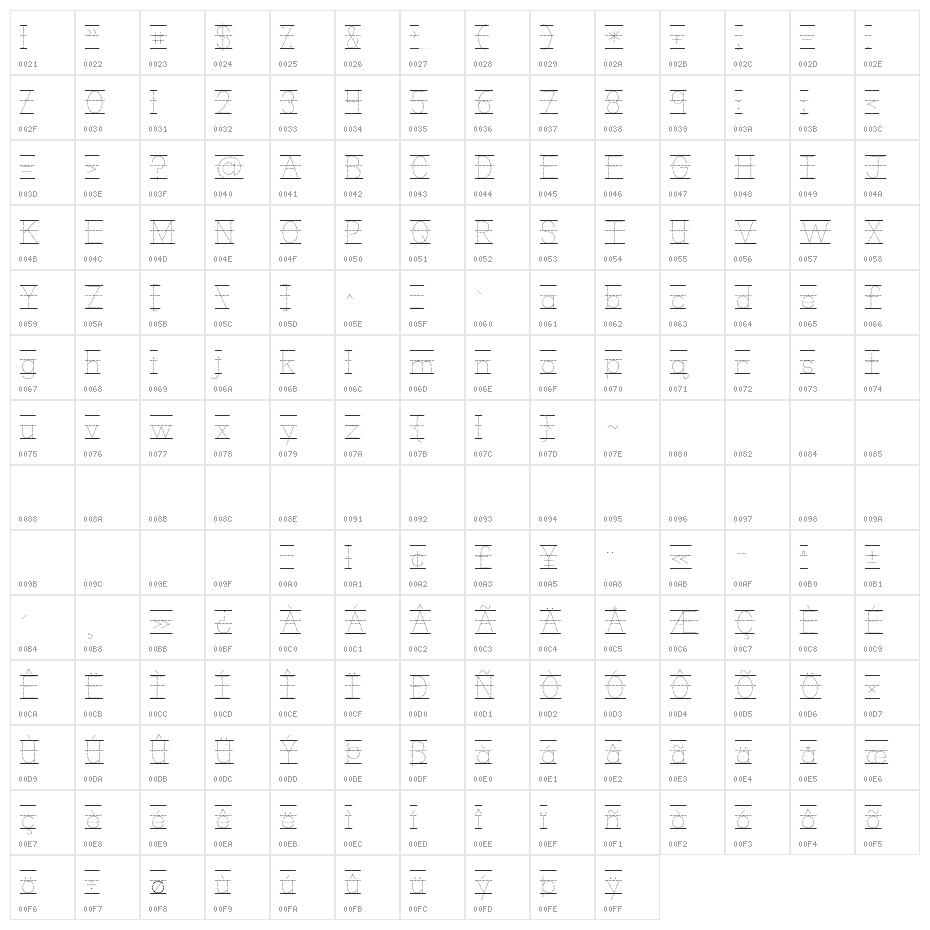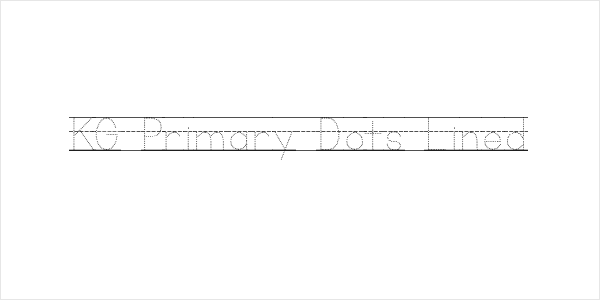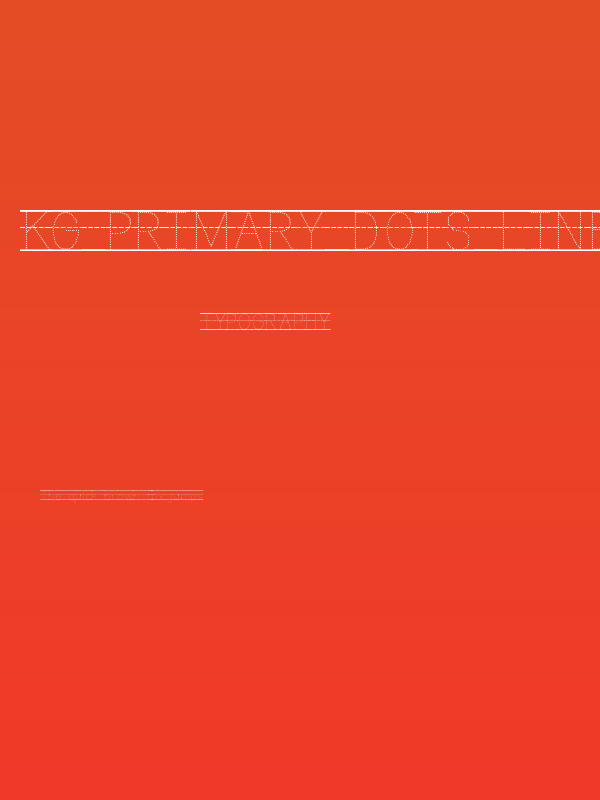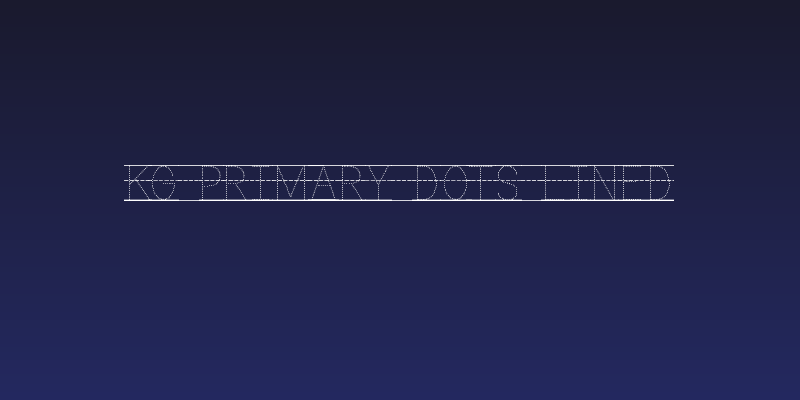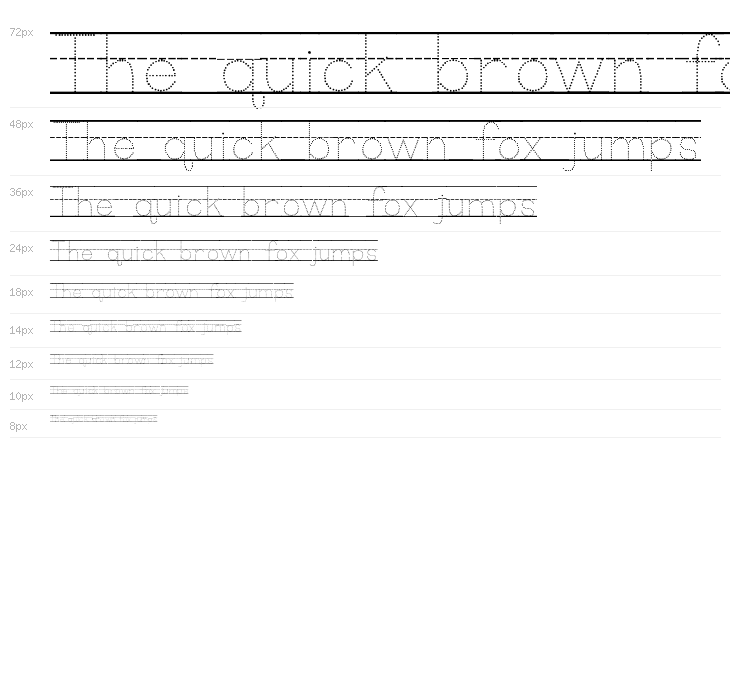
KG Primary Dots Lined Font
KG Primary Dots Lined Description
This font features a dotted line style, ideal for educational purposes, particularly in teaching handwriting. The characters are evenly spaced and aligned on a lined background, which helps guide the formation of letters. The uppercase and lowercase letters are clearly distinguishable, with a consistent height and width that aids in legibility. Numbers and special characters are included, maintaining the same dotted style, which makes them easy to recognize and replicate. This font is particularly useful for young learners or educational materials focused on handwriting practice.
Overall StyleEducational
Use CaseEducational materials, handwriting practice.
Proposed ProjectsIdeal for educational worksheets, handwriting practice sheets, and children's learning materials.